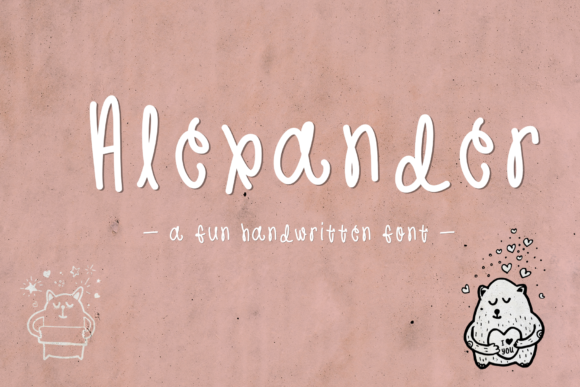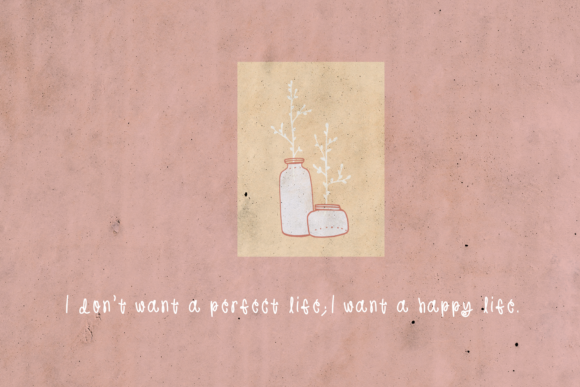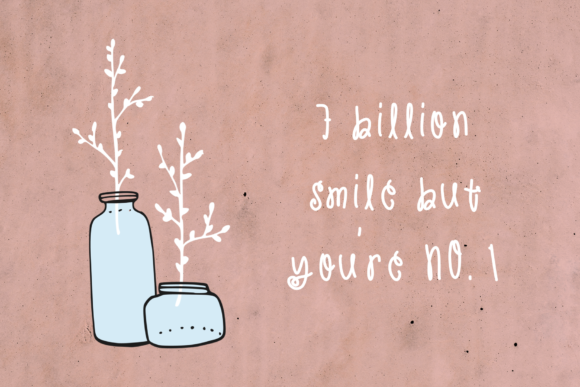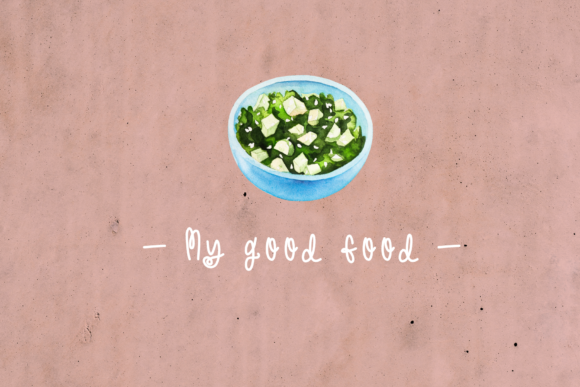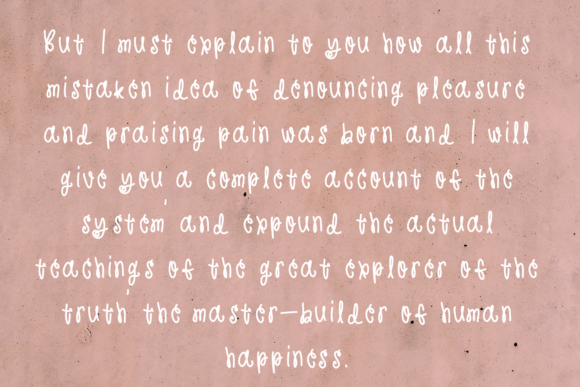
Alexander Font
About Alexander Font
Alexander is a cute and friendly handwritten font. Clean and a little bit quirky, this font is the perfect fit for all of your logos, branding, social media, and crafty DIY projects.